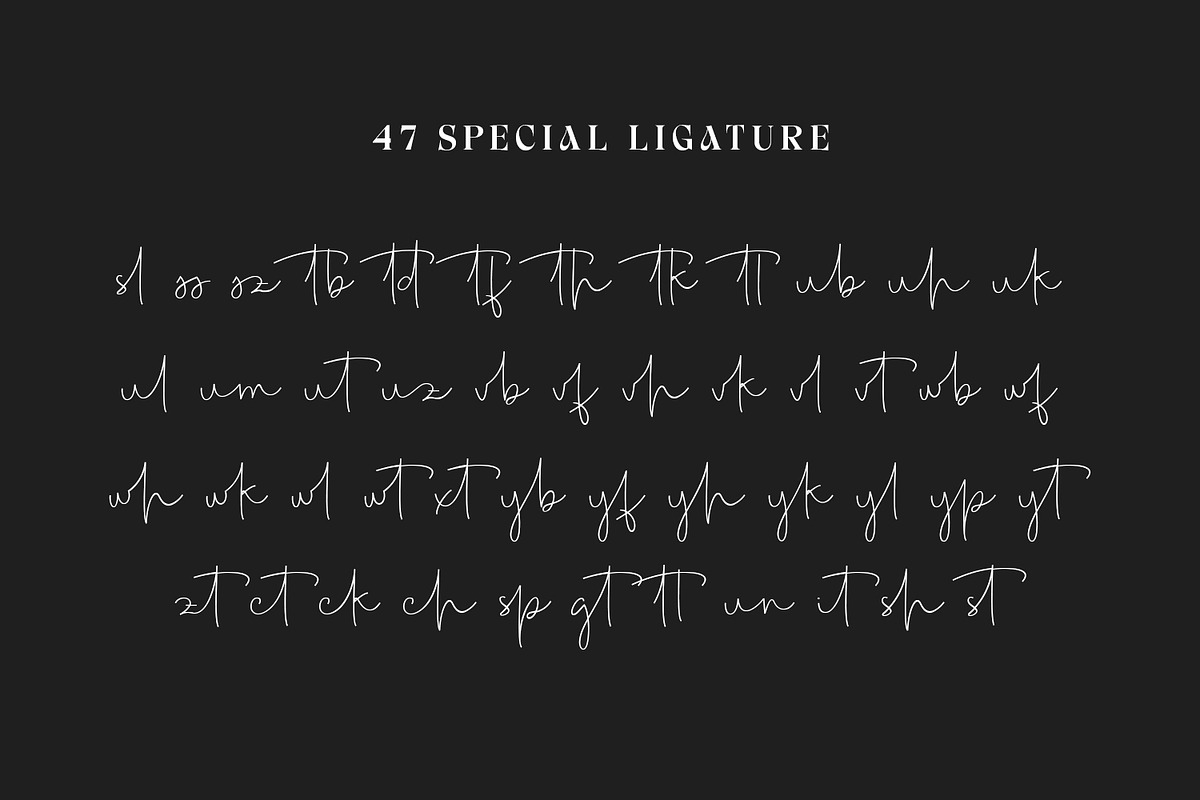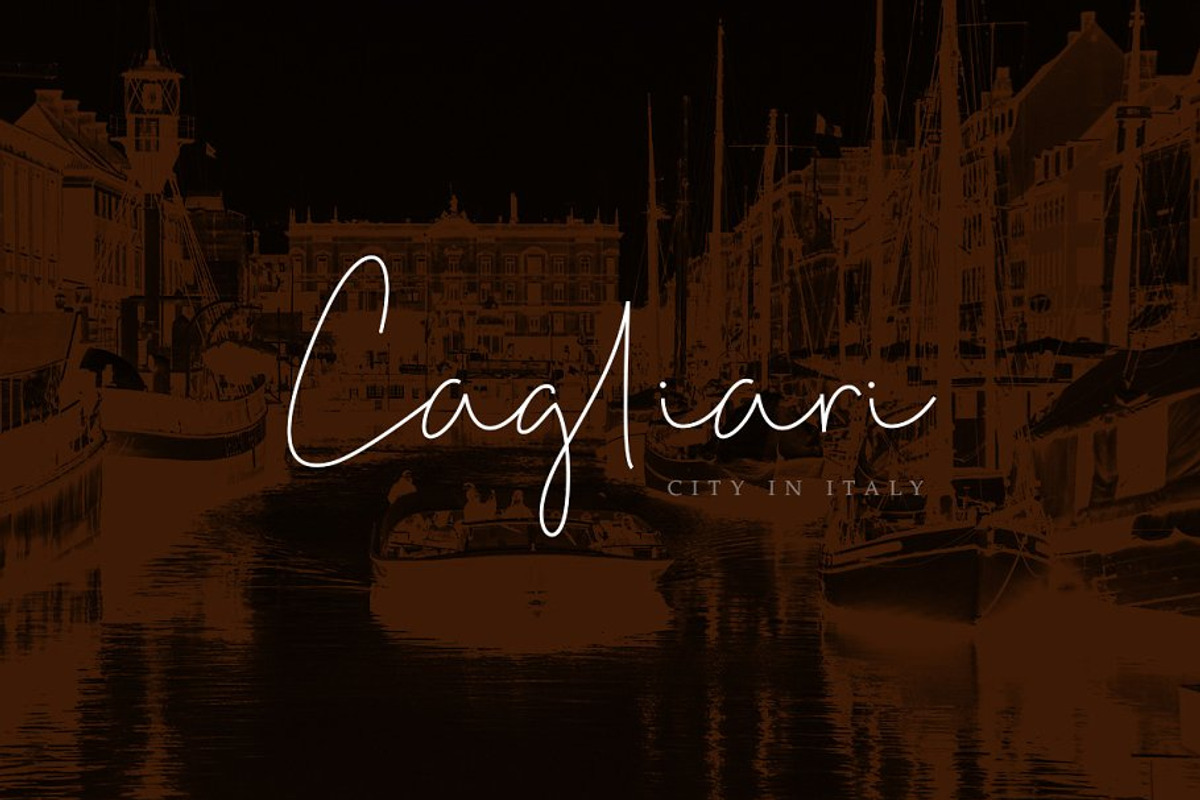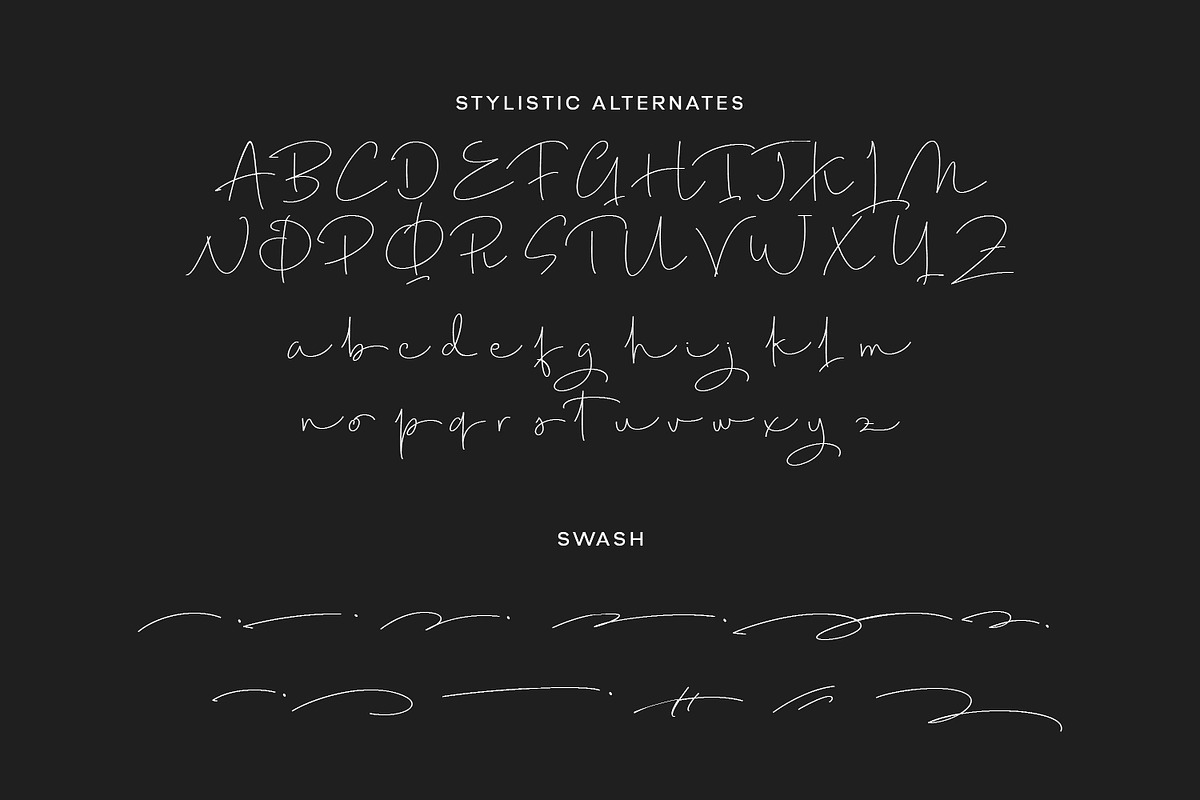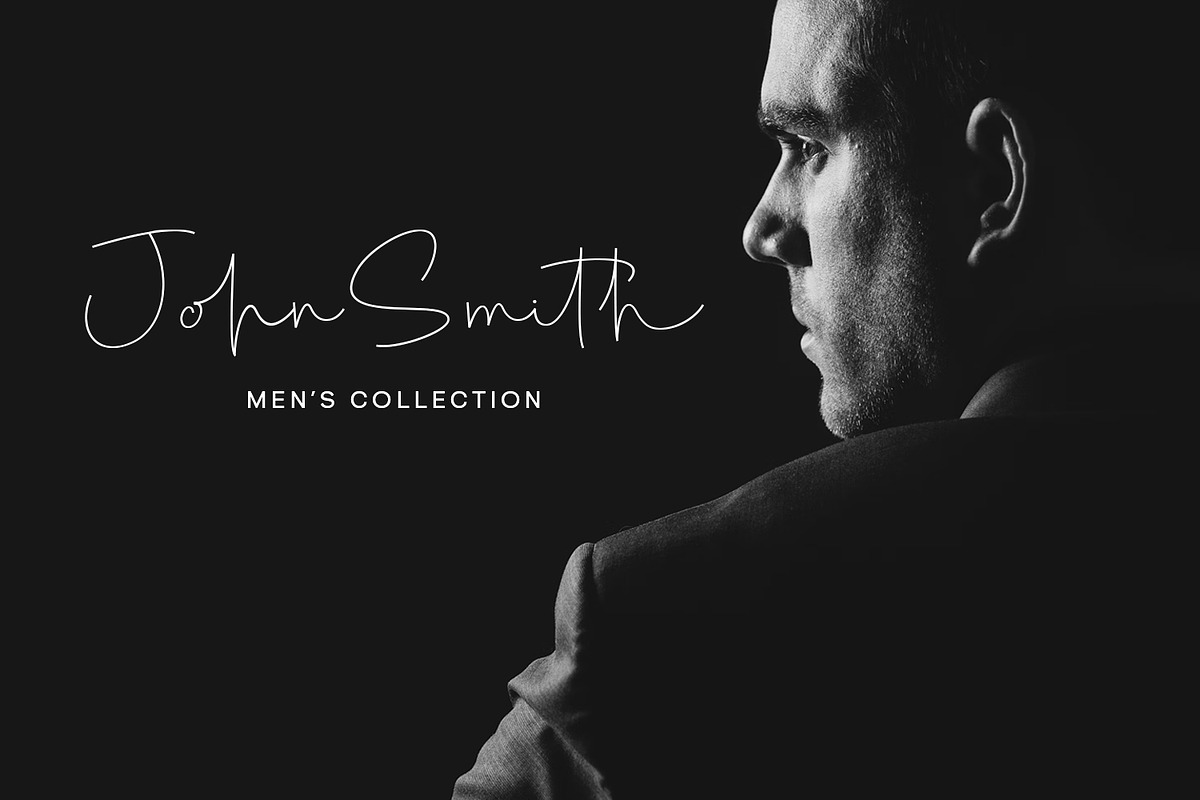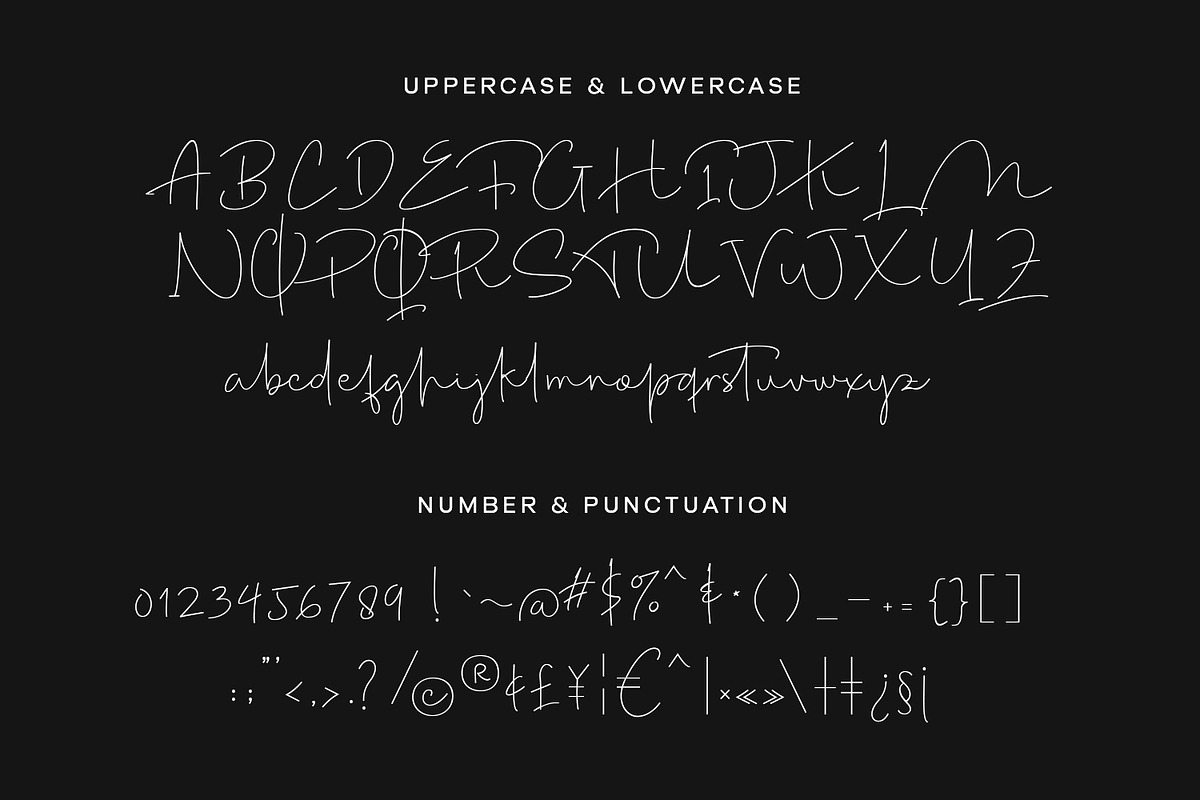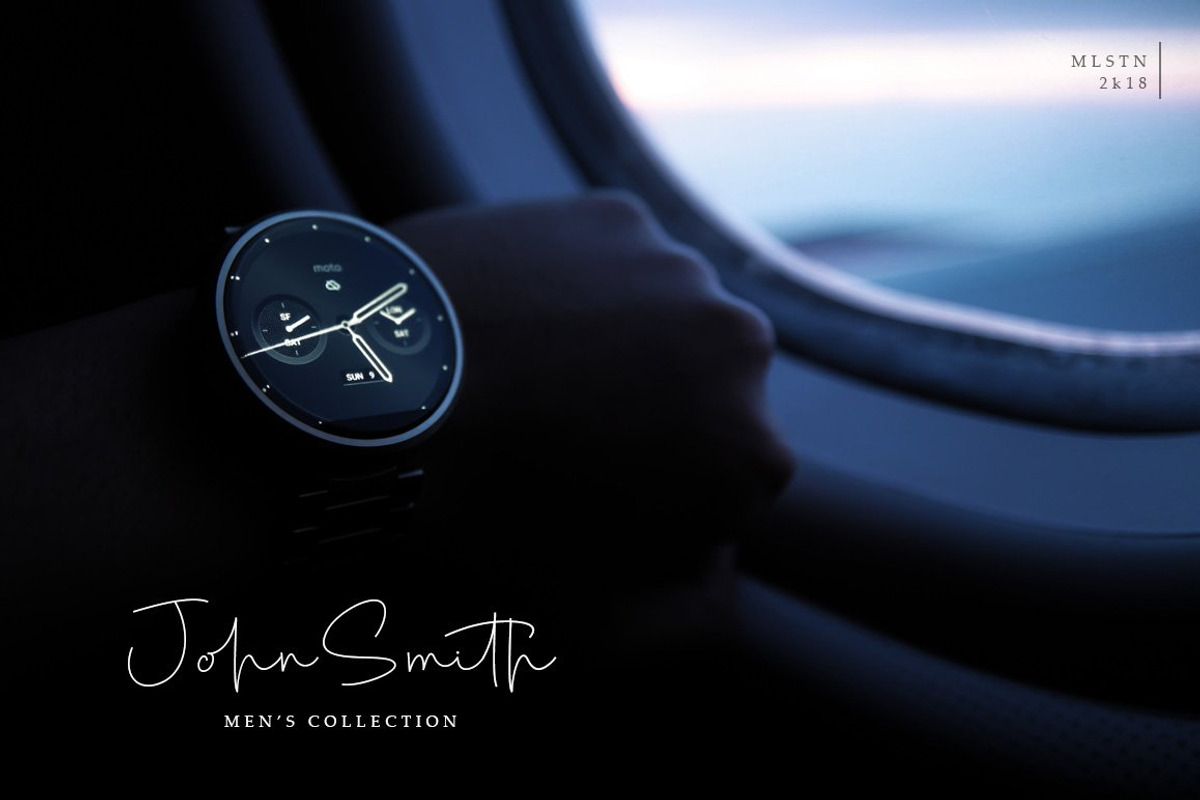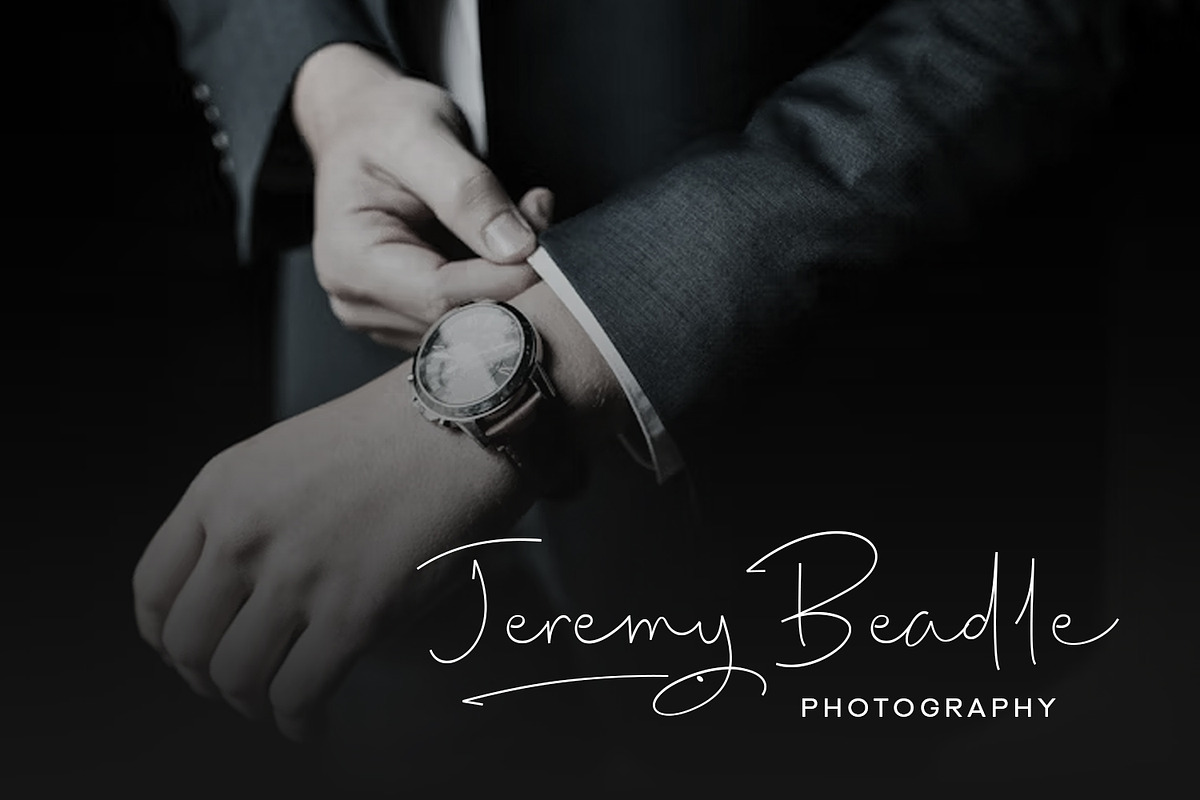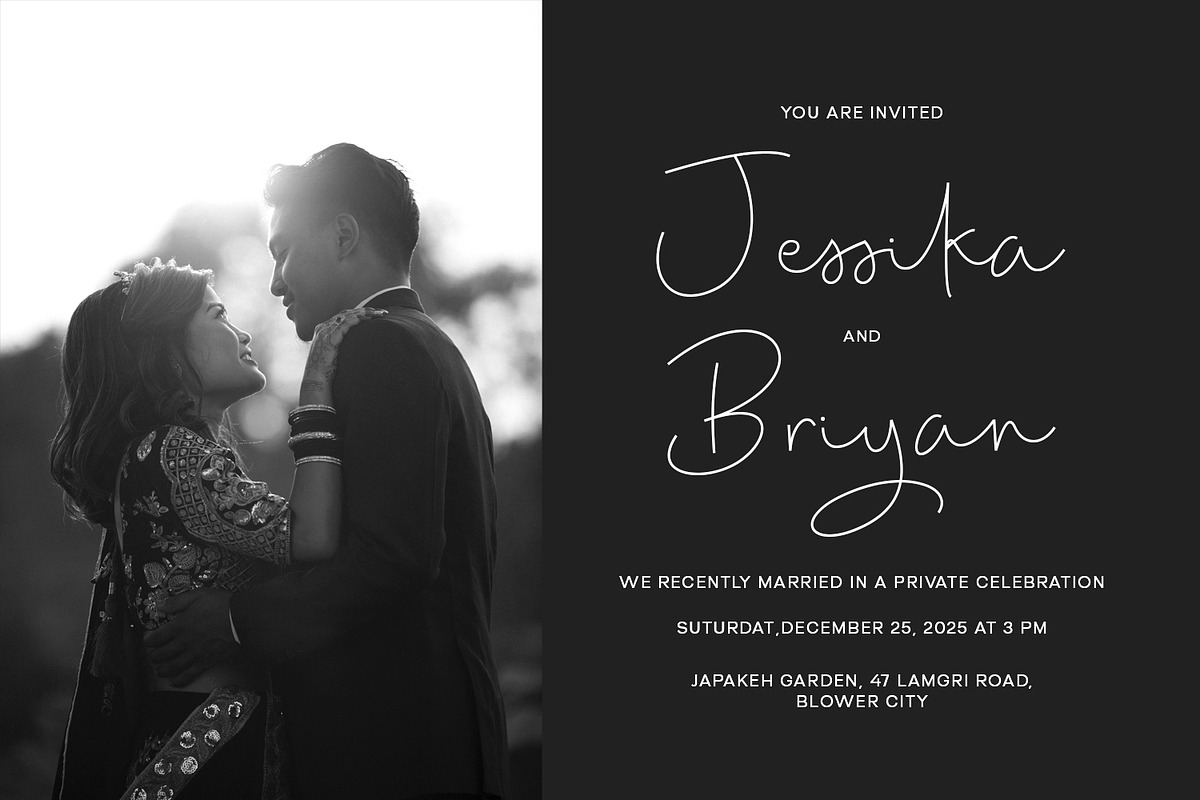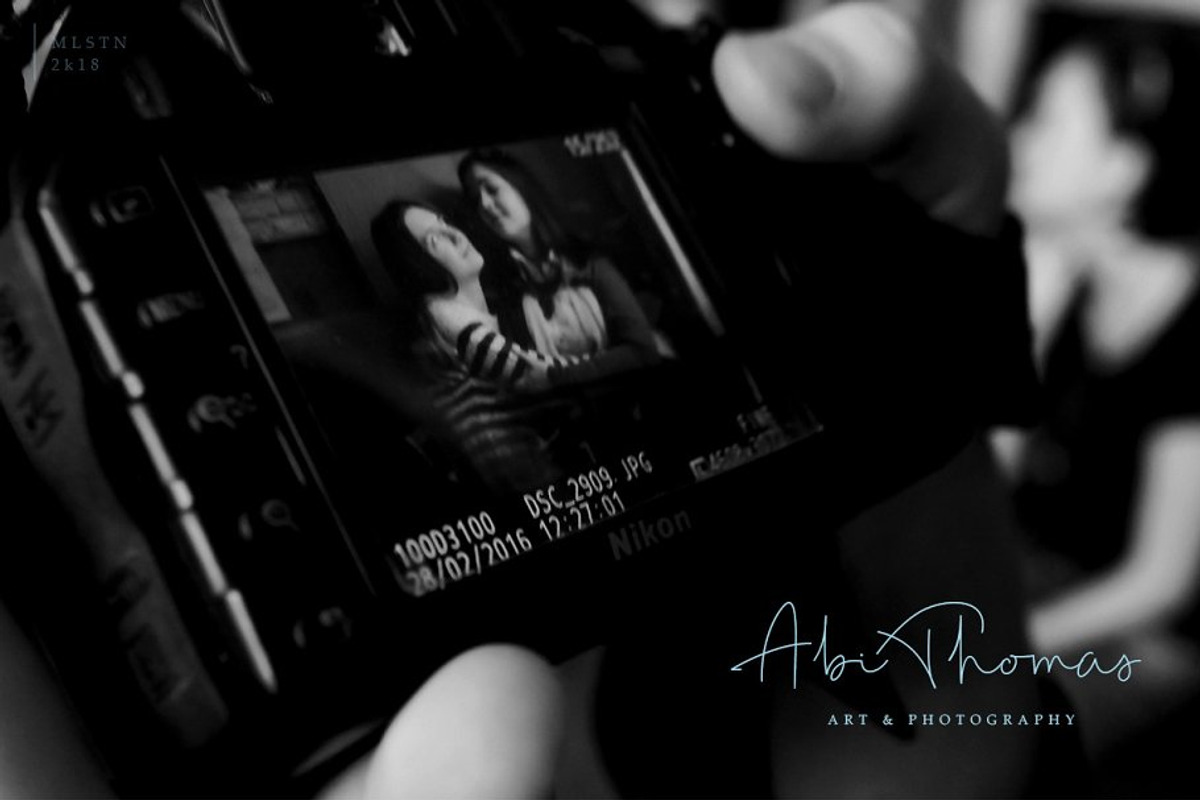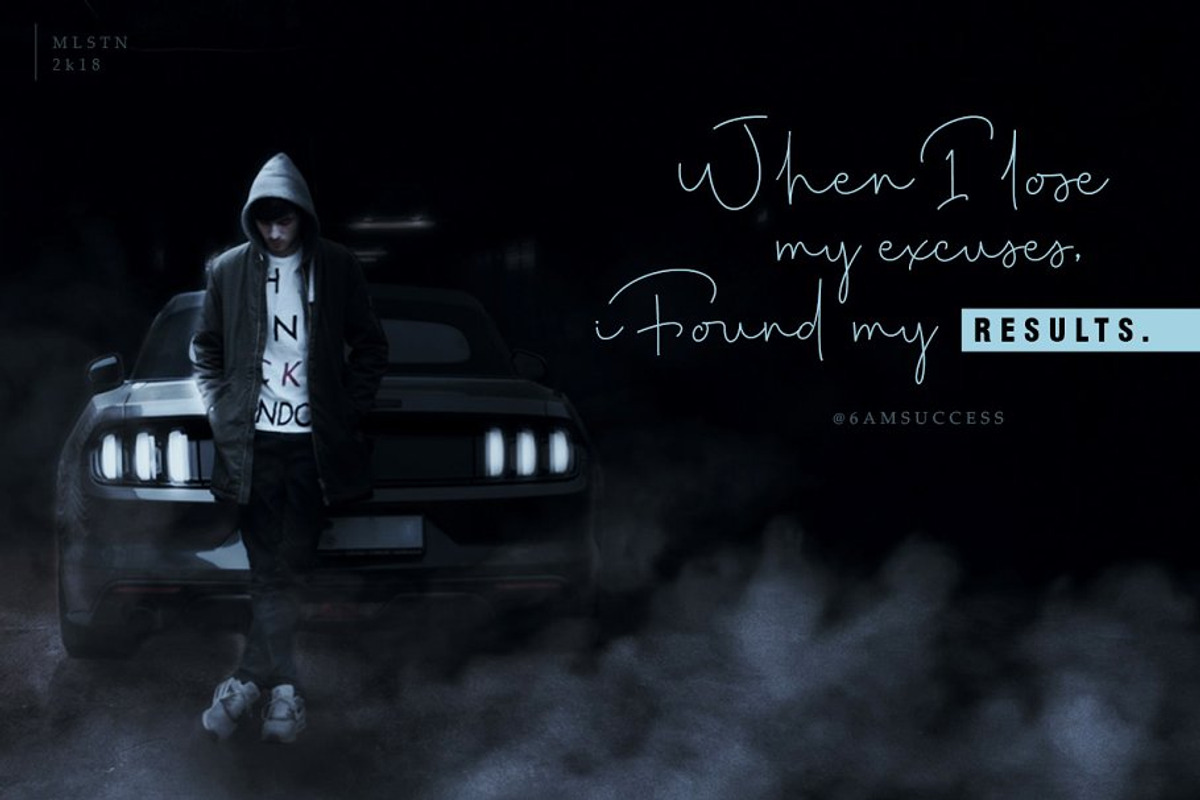
Polantas Signature Font
Polantas Signature bursts with a fluid, handwritten elegance that adds an artisan touch to your cherished creations. This exquisite font comes complete with a unique Special Ligature, letting each letter seamlessly flow into the next.